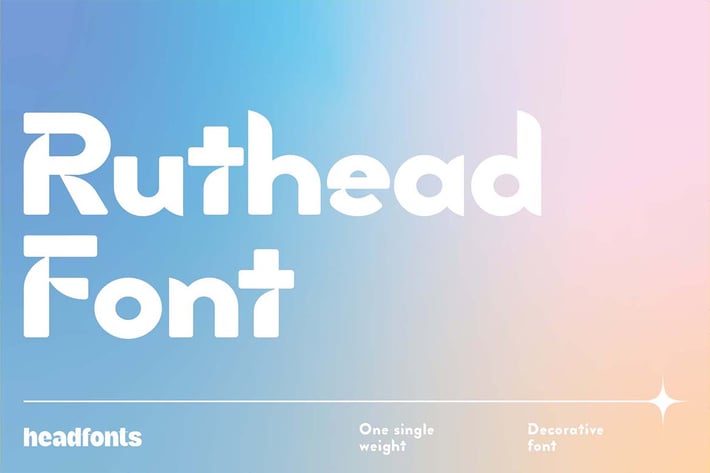
Ruthead Display Font
Presenting the newest font of the Headfonts family, Ruthead. Ruthead is bold, round yet friendly, an eye-catching typeface, and the ideal choice for modern, striking designs. This sans serif decorative font features a low x-hight, prominent ascenders, and descenders, and expressive ink-traps.
Ruthead is an uppercase and lowercase font with standard Latin script support, numerals, and punctuation. This contemporary designed font is well balanced, has solid proportions, and is readable while still having a strong personality. Ruthead was specially designed for big, impactful headlines and designs.